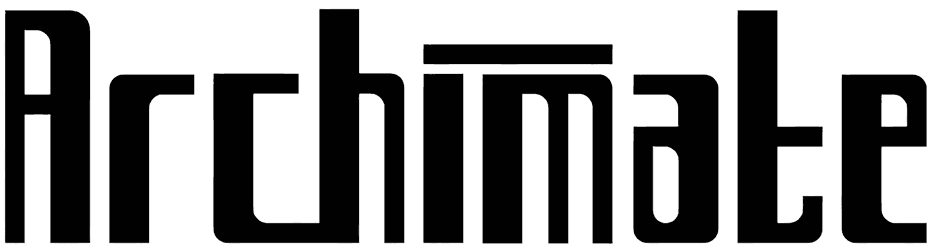
Archimate Font
Archimate is a blend of elegance and contrast that comes with flowing characters, so at the first glance, you can impress the audience with the unimaginable quality of your posters, logos, business cards, flyers, or brochures.
This retro tech font comes with two distinctive styles, so you have a wide selection range for bringing your creative ideas to the real world. If creating a sense of classic professionalism and momentum really matters to you, we strongly recommend picking up this masterpiece.